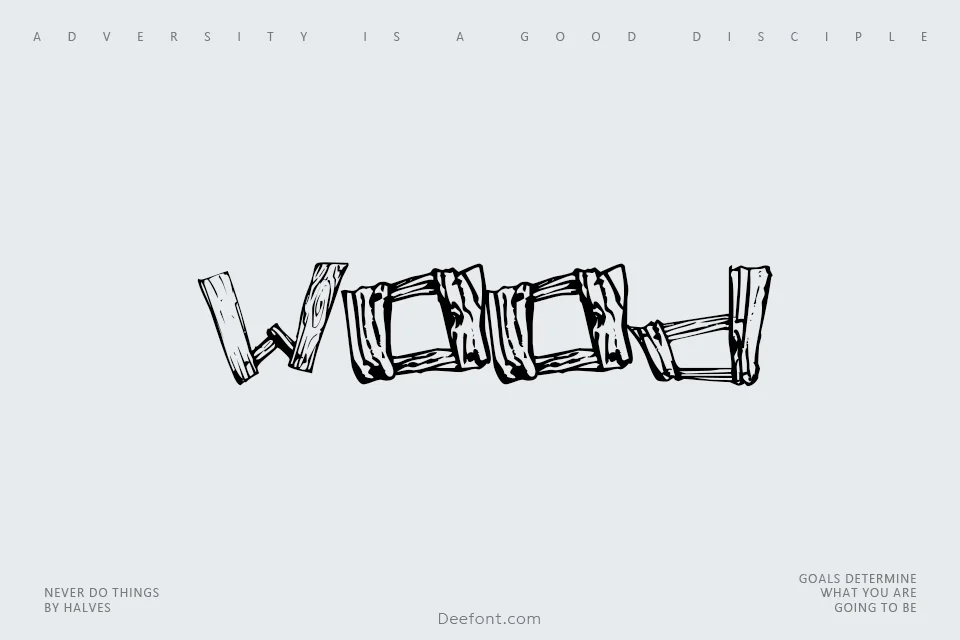
Wood 2 Font
Wood 2 is a decorative display font featuring distinctive wood grain textures and rustic aesthetics. Each character showcases intricate wood-like patterns with bold strokes and organic irregularities, creating an authentic handcrafted appearance. Perfect for nature-themed designs, eco-friendly branding, rustic wedding invitations, vintage posters, and woodland-inspired projects. The font includes uppercase, lowercase letters, numbers, and 139 special characters, making it versatile for creative applications requiring a natural, earthy visual identity.